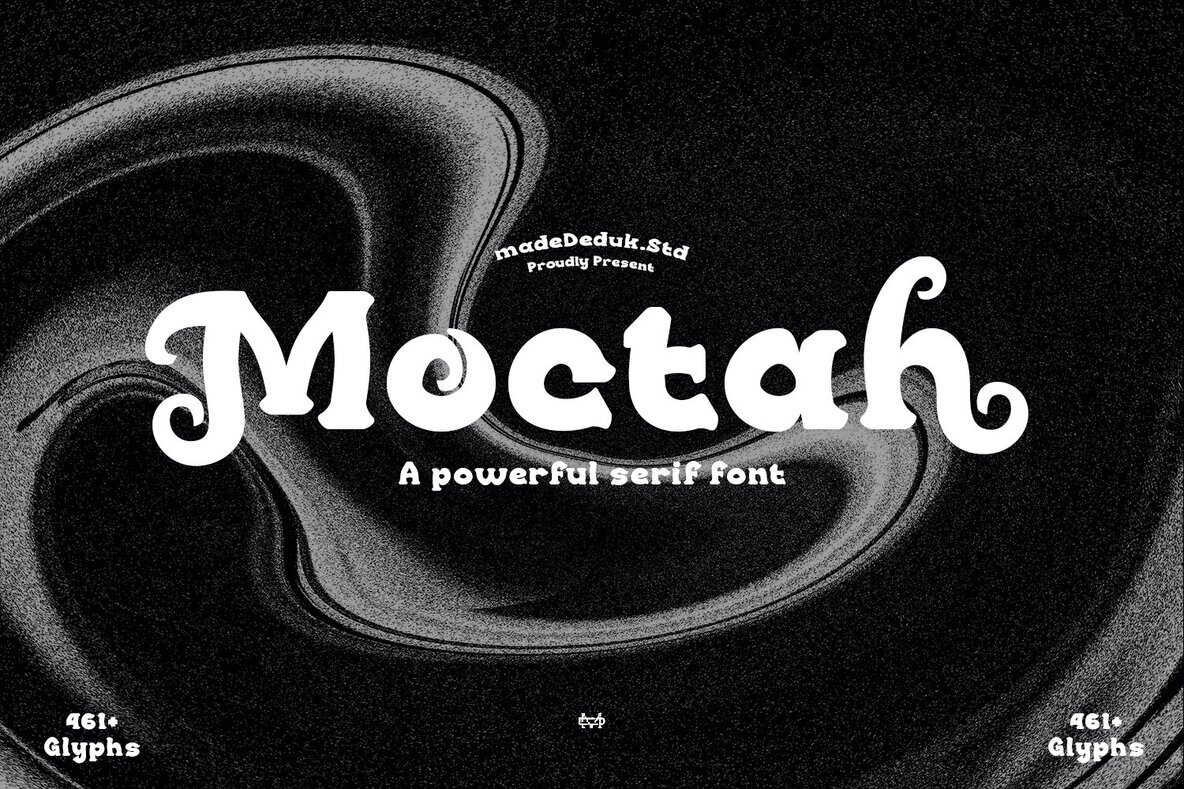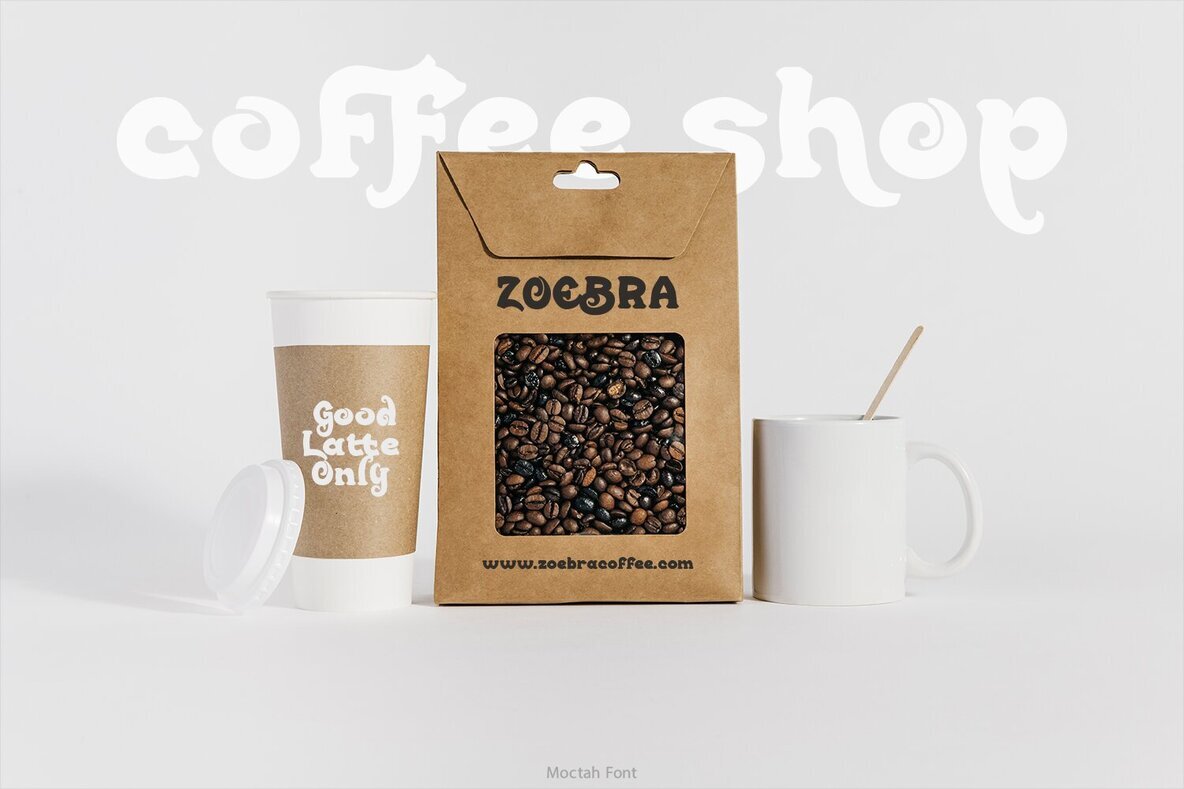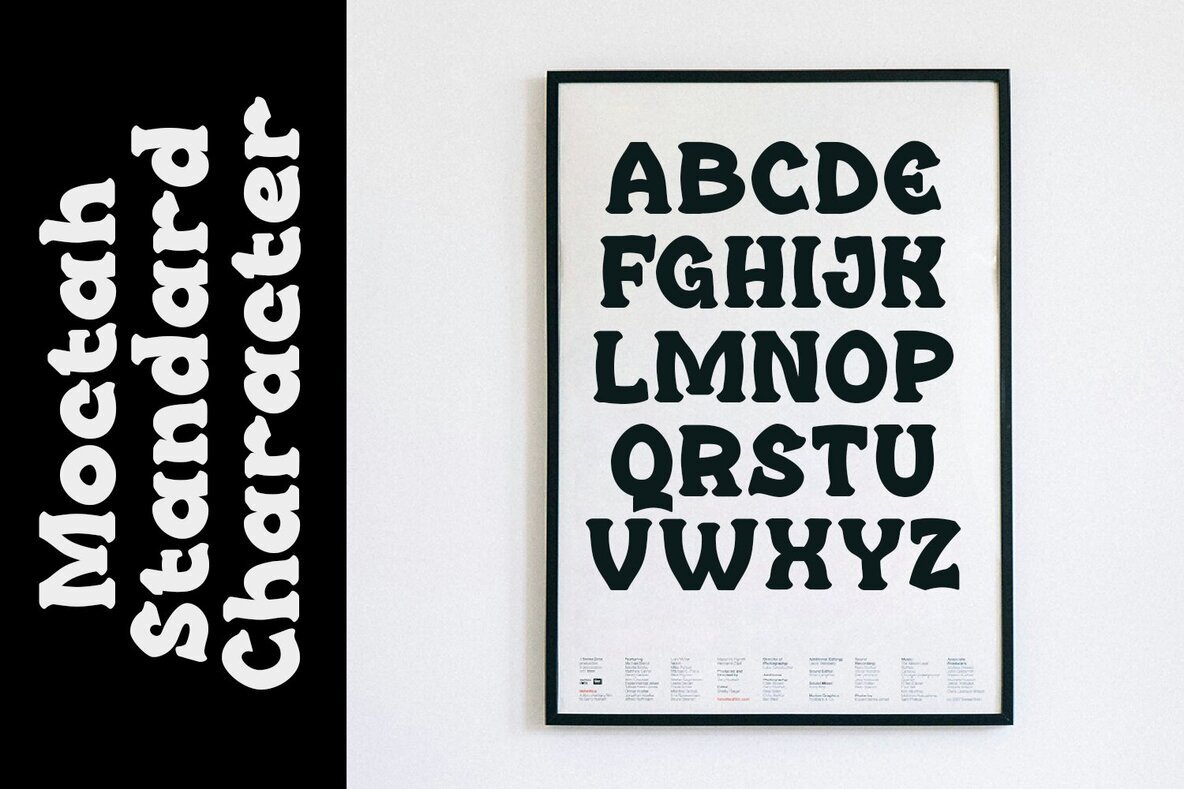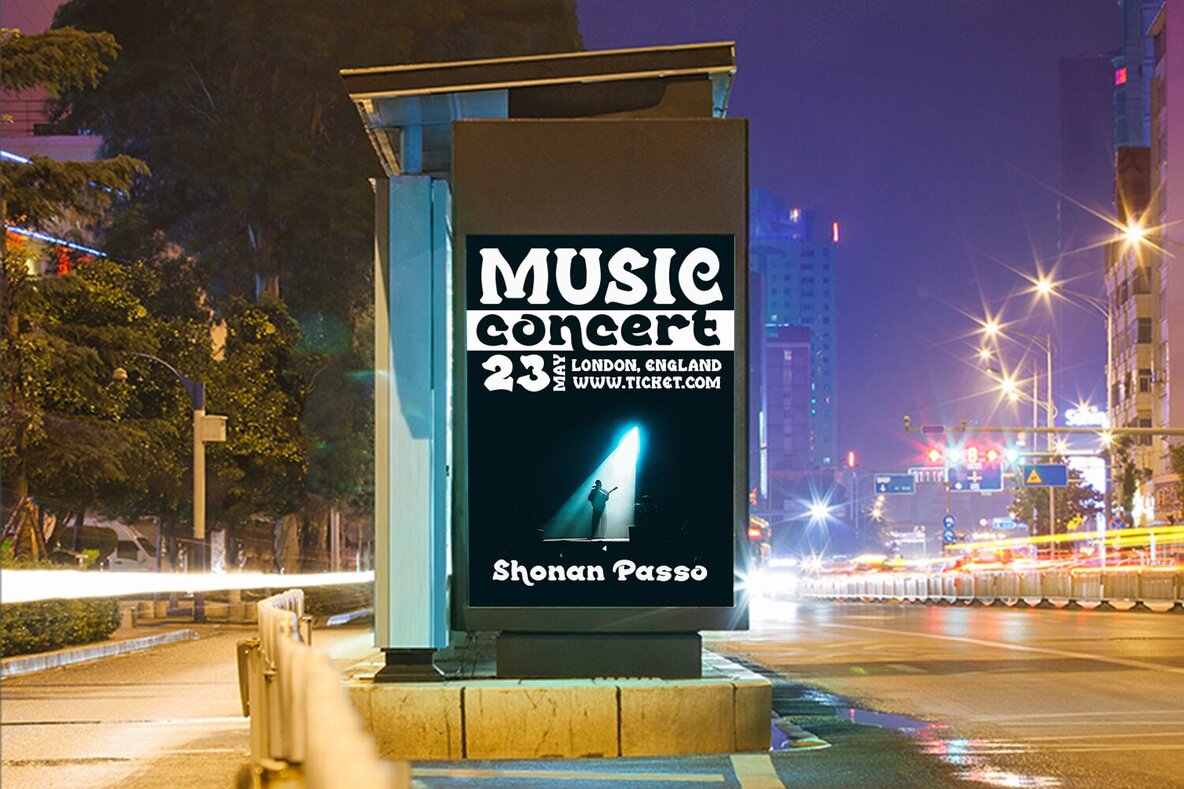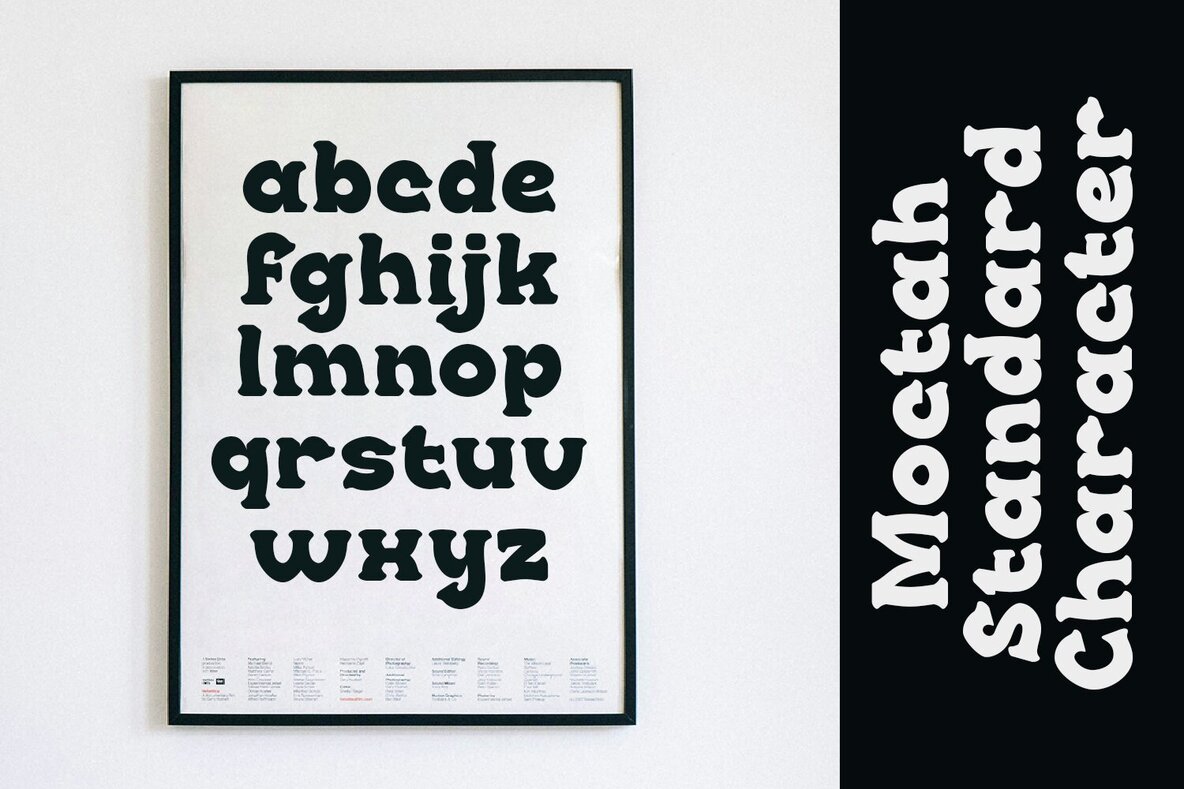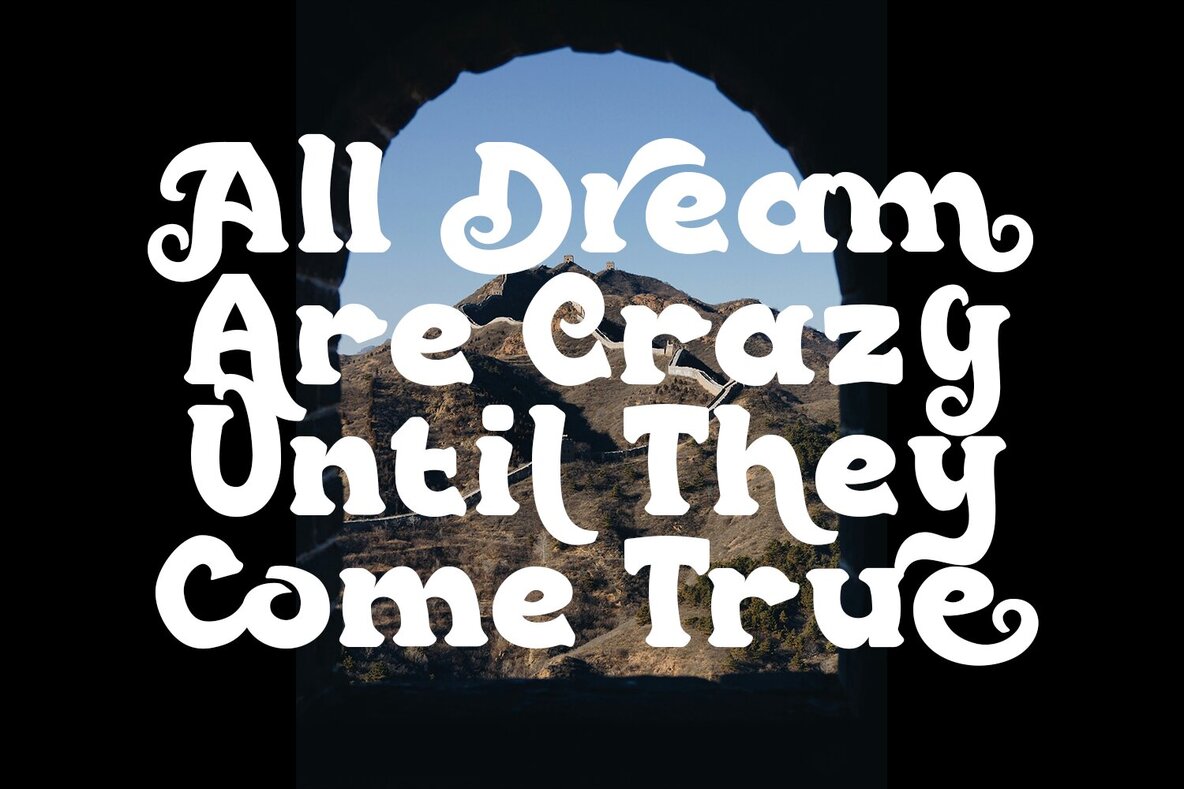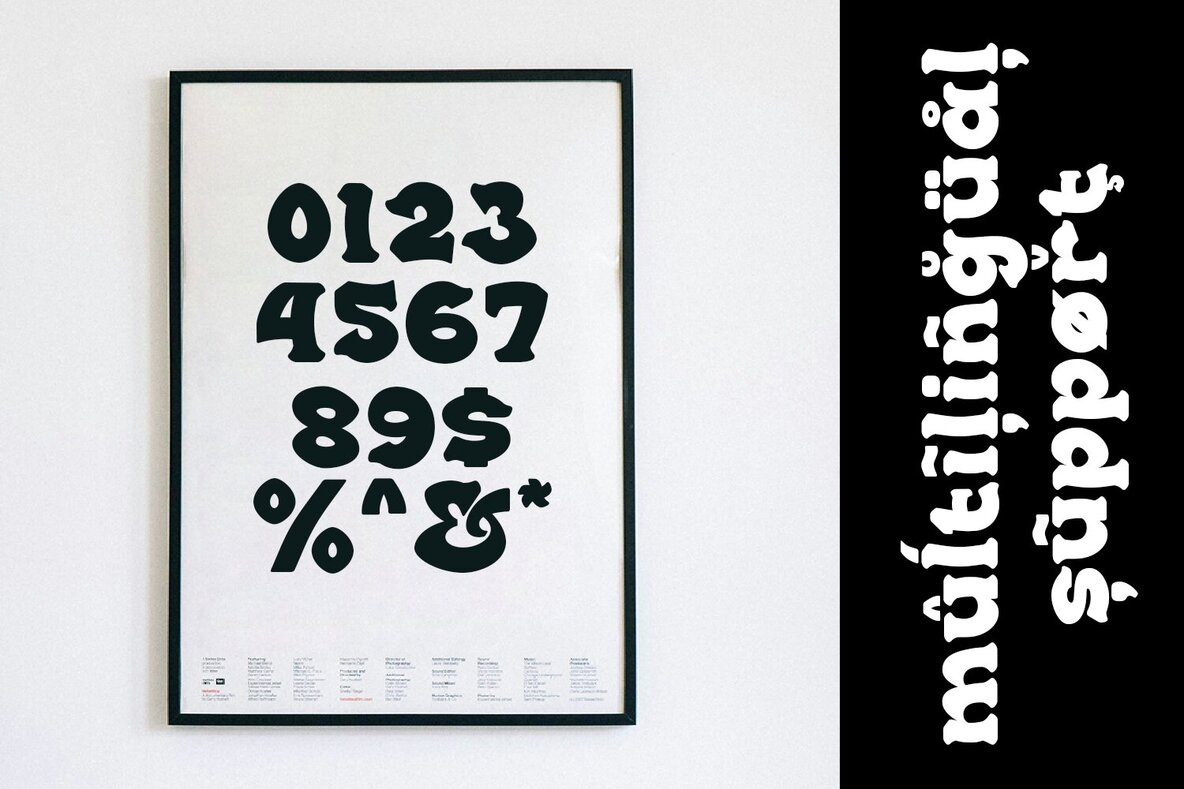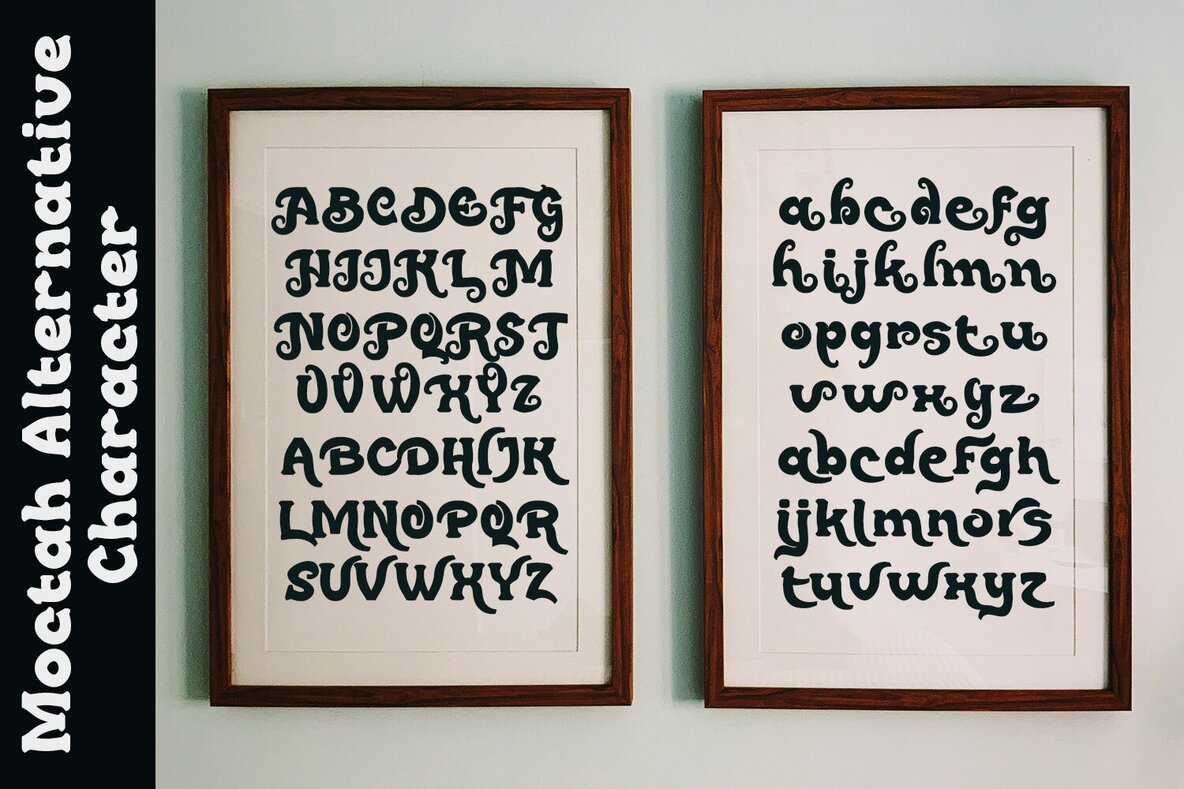
Moctah Font
Moctah
Moctah is a striking serif font crafted with a nod to the retro style of the 90s. Its bold design offers excellent versatility and rhythm, making it ideal for a range of projects where readability and style are key. This font is perfect for bringing a vintage yet sophisticated flair to your designs.
Whether you're working on branding, product packaging, invitations, or quotes, Moctah enhances the visual appeal with its refined characteristics. It is also well-suited for headlines, labels, posters, and logos, ensuring your text stands out with a distinct and memorable presence.